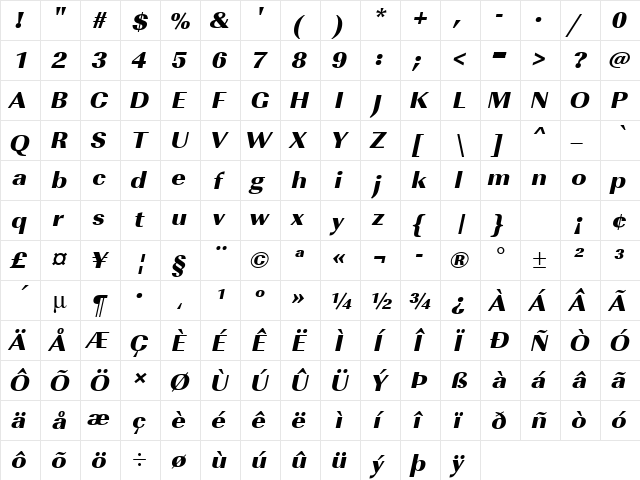
URWImperialTUltBolWid Oblique Font Preview
URWImperialTUltBolWid Oblique
URWImperialTUltBolWid Oblique Font Details
Design Context for URWImperialTUltBolWid Typeface
URWImperialTUltBolWid offers clean, dependable letterforms without strong stylistic allegiance, making it a practical choice for designers who need flexibility. Its italic angle brings a sense of urgency and motion to the letterforms.
Pro Tip: Use URWImperialTUltBolWid for emphasis, pull quotes, and subheadings where its slanted energy can add rhythm to the layout.